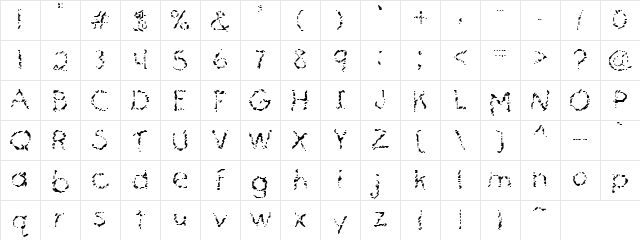
Mascara Mistake Regular
Design Context for Mascara Mistake
Mascara Mistake is a composed and adaptable typeface that performs quietly and consistently across a wide range of design contexts.
Pro Tip: Use Mascara Mistake in both headline and body roles to test its range before committing to a single application.